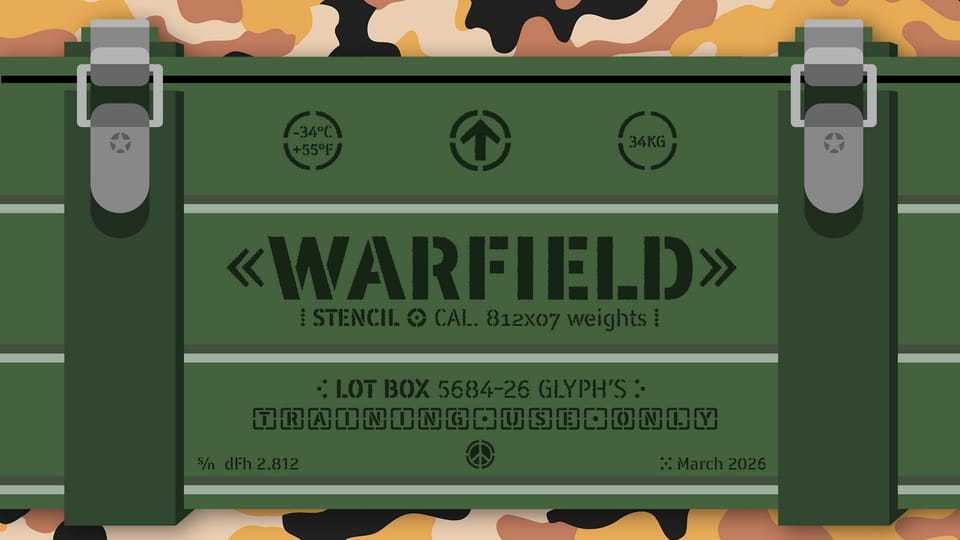
Download Warfield font, a stencil typeface, drawing from its military and industrial heritage, but shedding any aggressiveness to embrace absolute legibility.
Designer: Fernando Haro